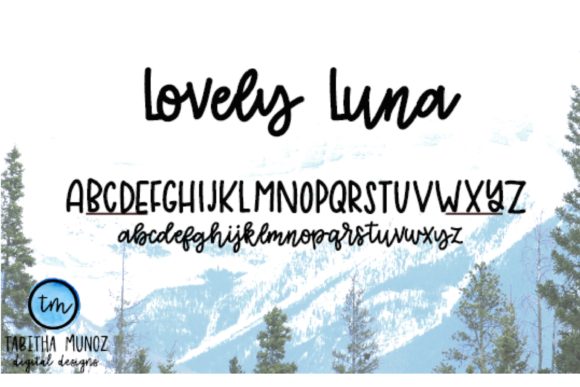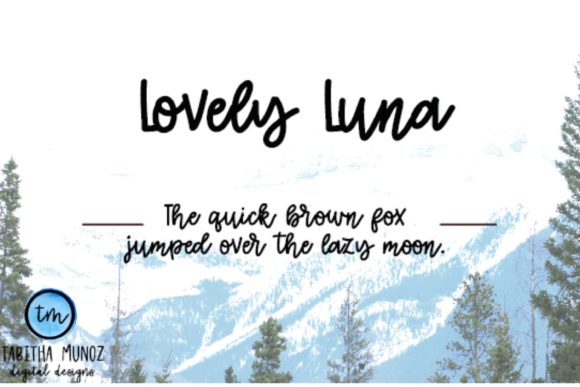
Lovely Luna Font
About Lovely Luna Font
Lovely Luna is a playful script font that is great for adding character & excitement to your designs. Fall in love with it’s cheerful charm!